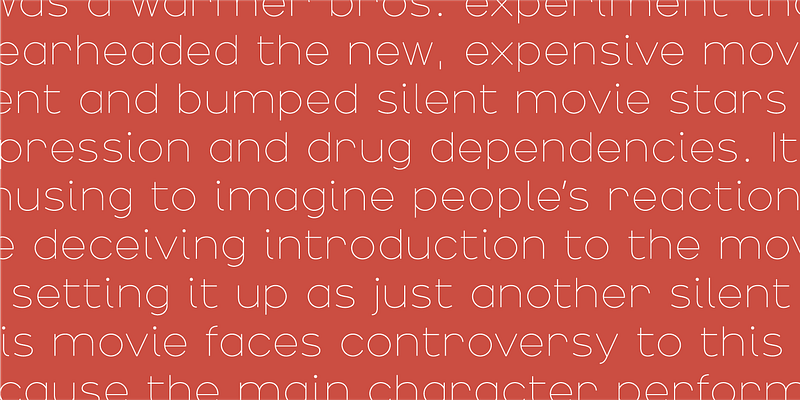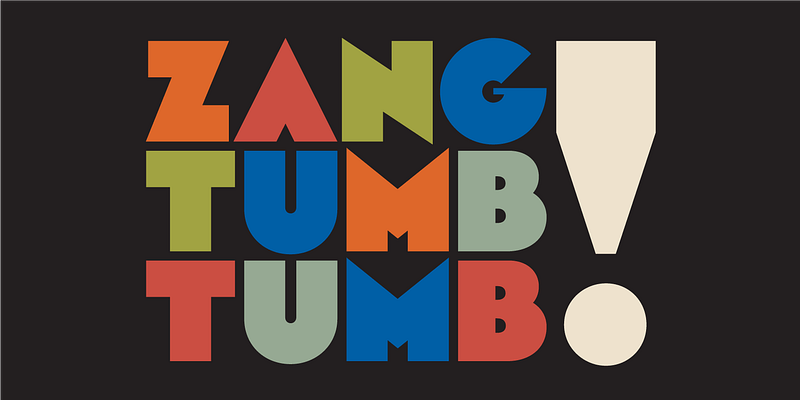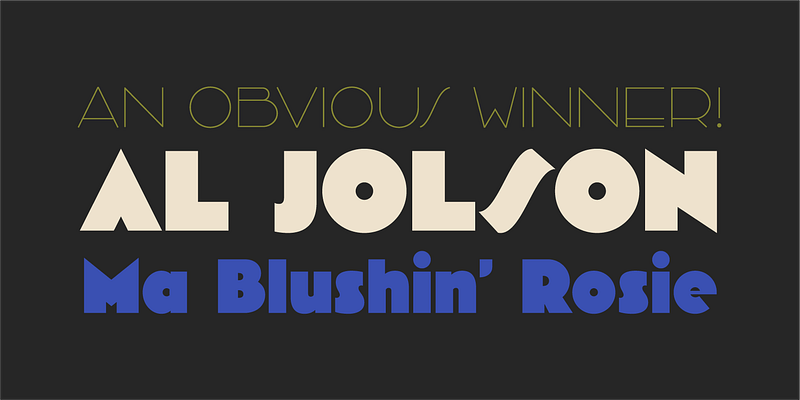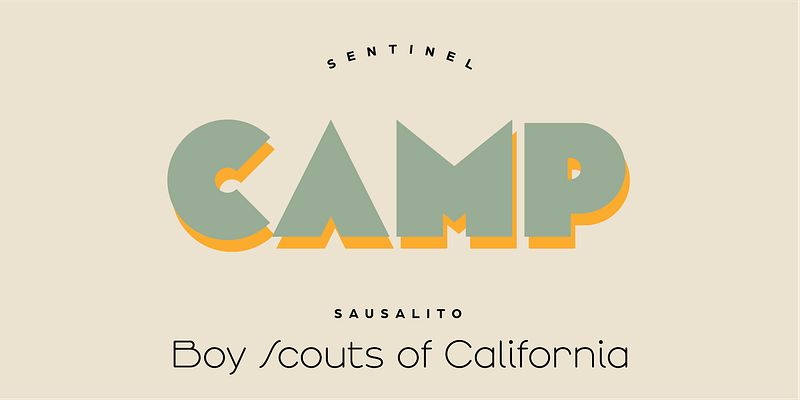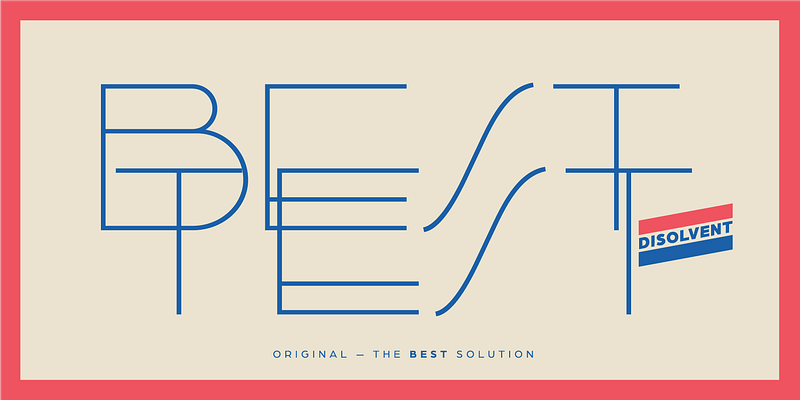
Arbotek is based on the same skeleton as Arboria, but was built with a more radical approach to pure geometric forms. It is unabashedly tectonic; its outspoken letterforms indicate it is meant solely for display use. The delicate Thin and Light seem to be lifted straight from blueprints, with the rounded variant for the Light suggesting letters drawn by hand with pen and ink. The forceful Ultra references the gorgeous lettering found on vintage art deco posters from the 1920s–30s; Type-Ø-Tones 2013–2017